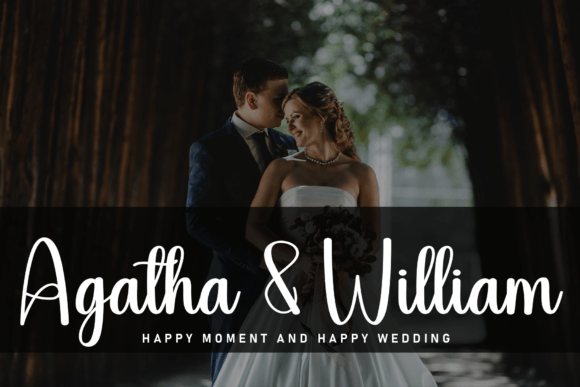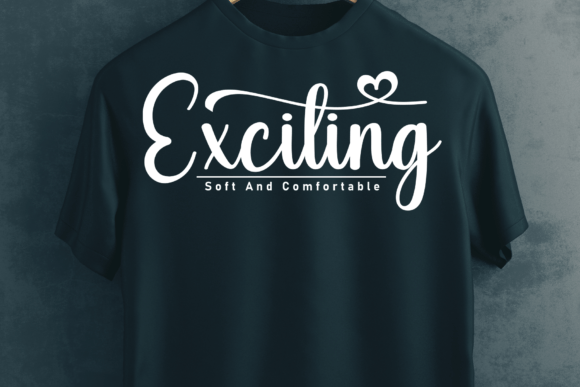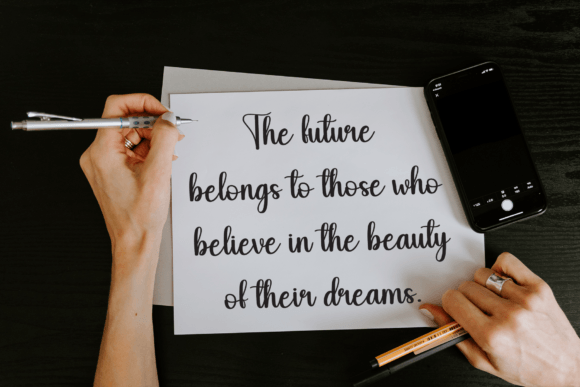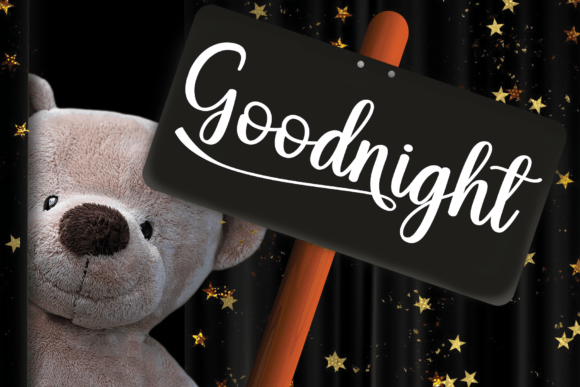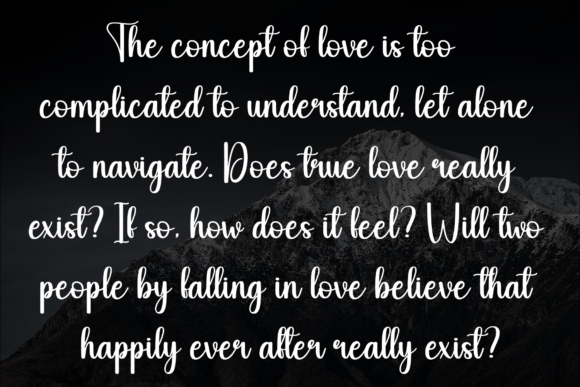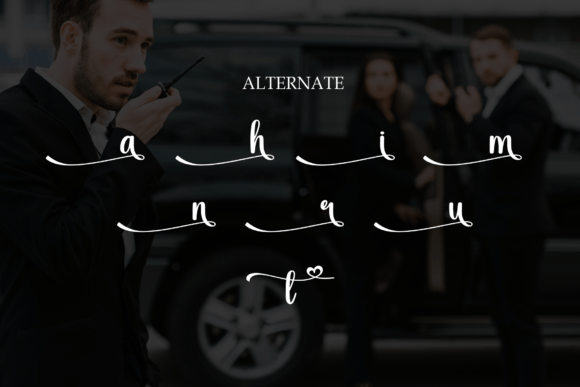
Introduction to Maintain Font
Maintain is a sweet and friendly handwritten font.
Cute and fun, this font is ideal for writing wedding invitations, cards, or any other design that might need a fun touch .